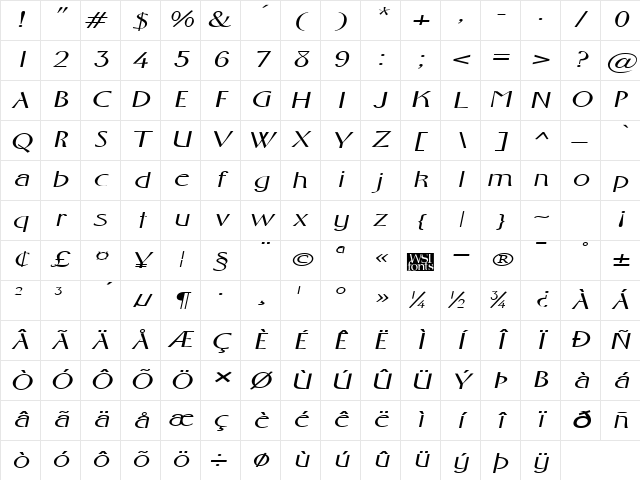
FosterExpanded Italic
Design Context for FosterExpanded
FosterExpanded is a composed and adaptable typeface that performs quietly and consistently across a wide range of design contexts. The slanted form adds forward momentum and visual energy.
Pro Tip: Use FosterExpanded for emphasis, pull quotes, and subheadings where its slanted energy can add rhythm to the layout.